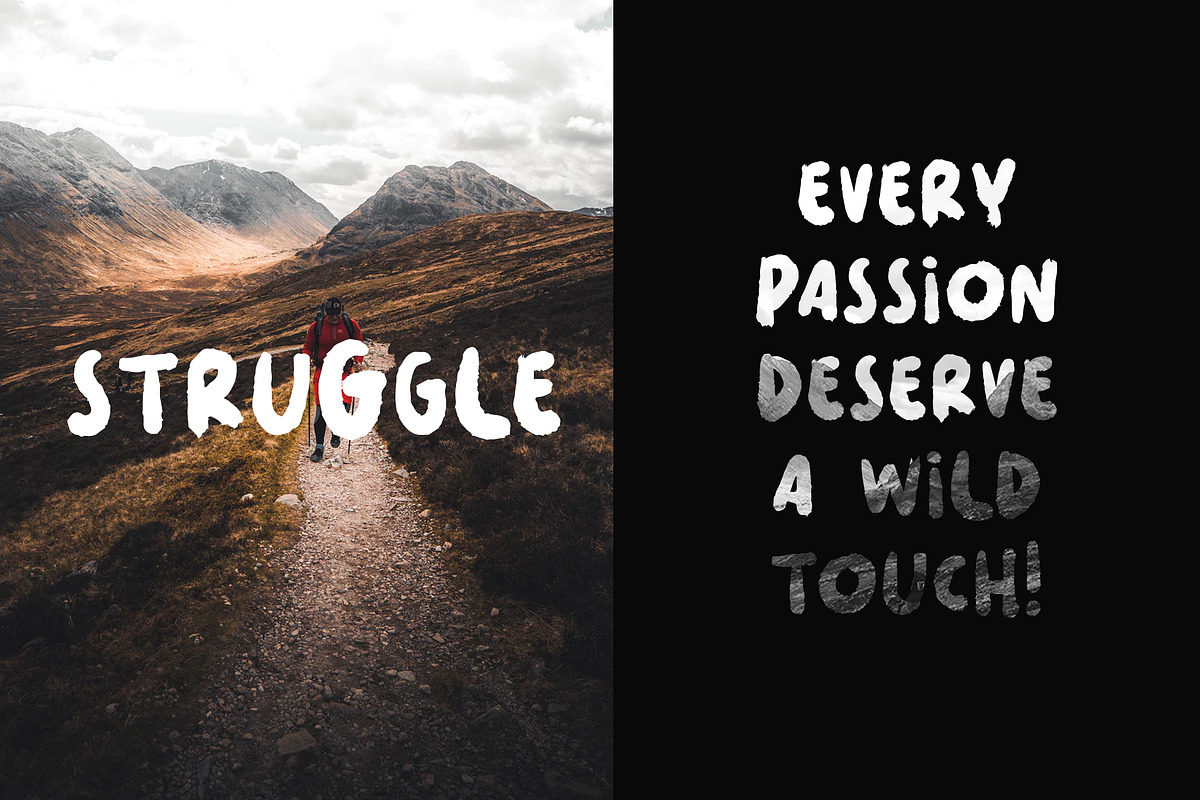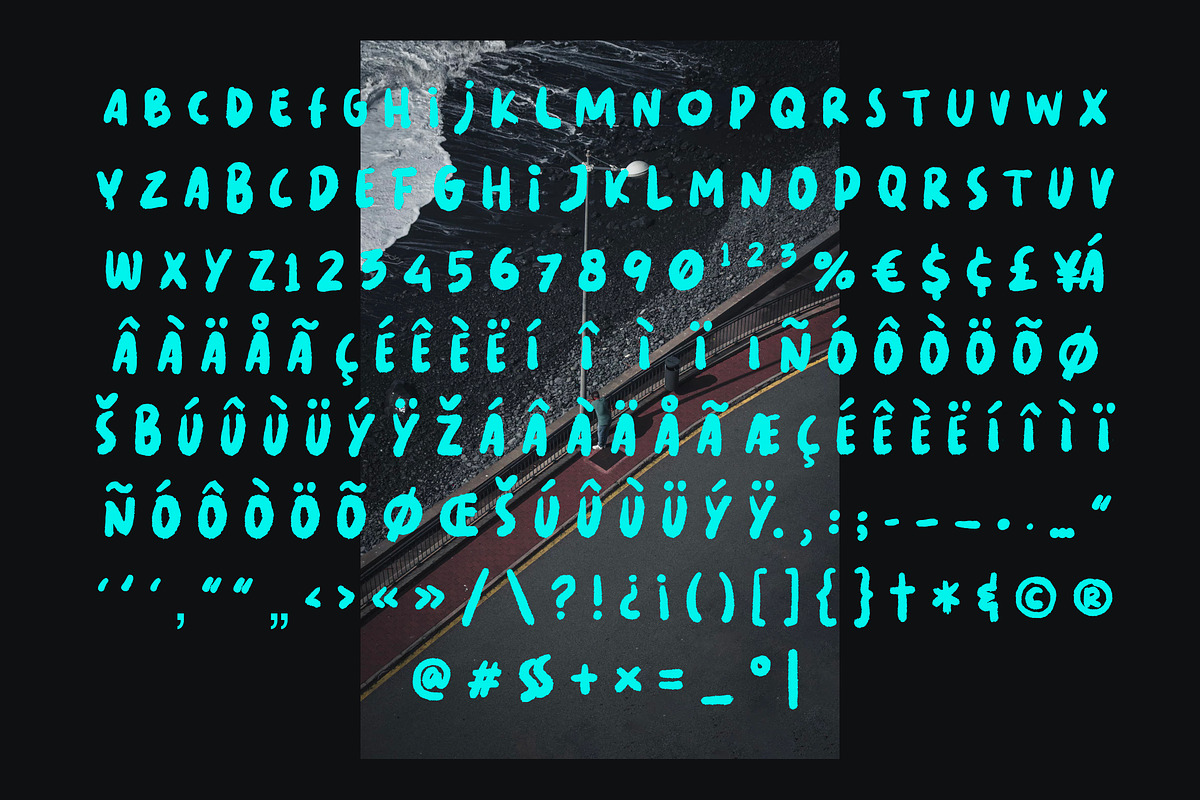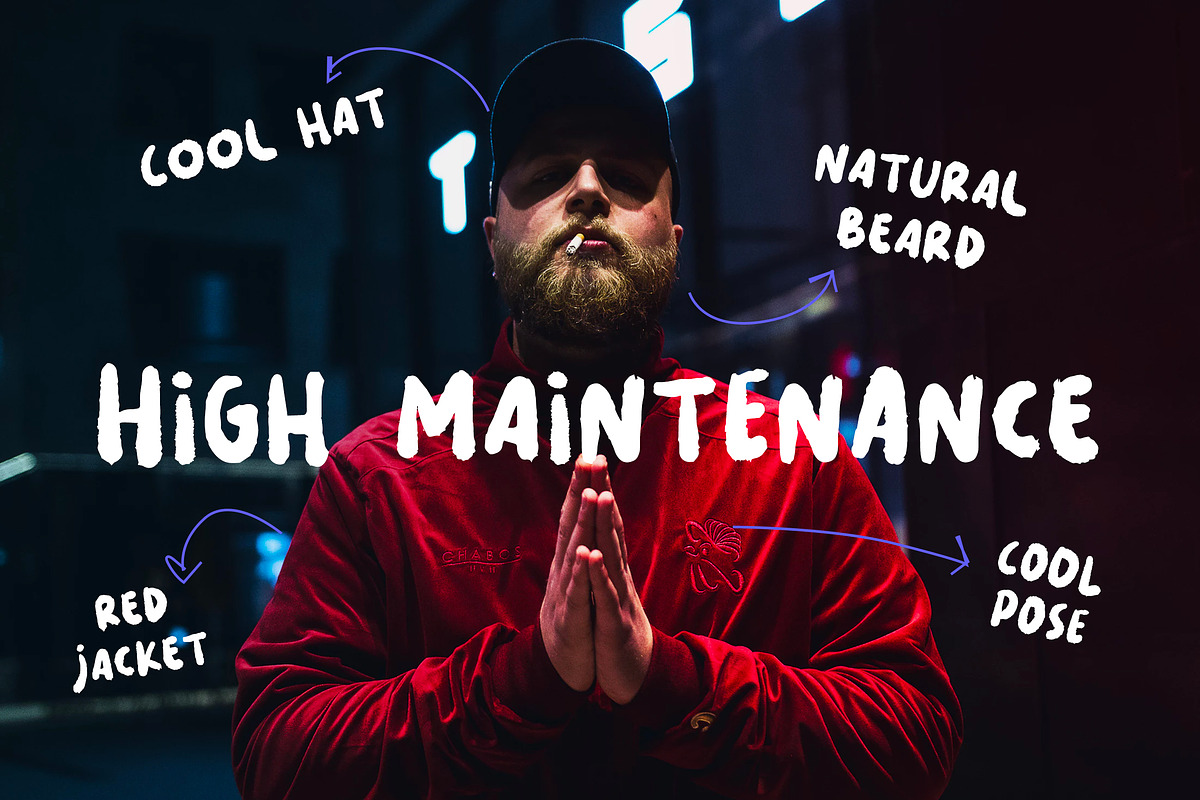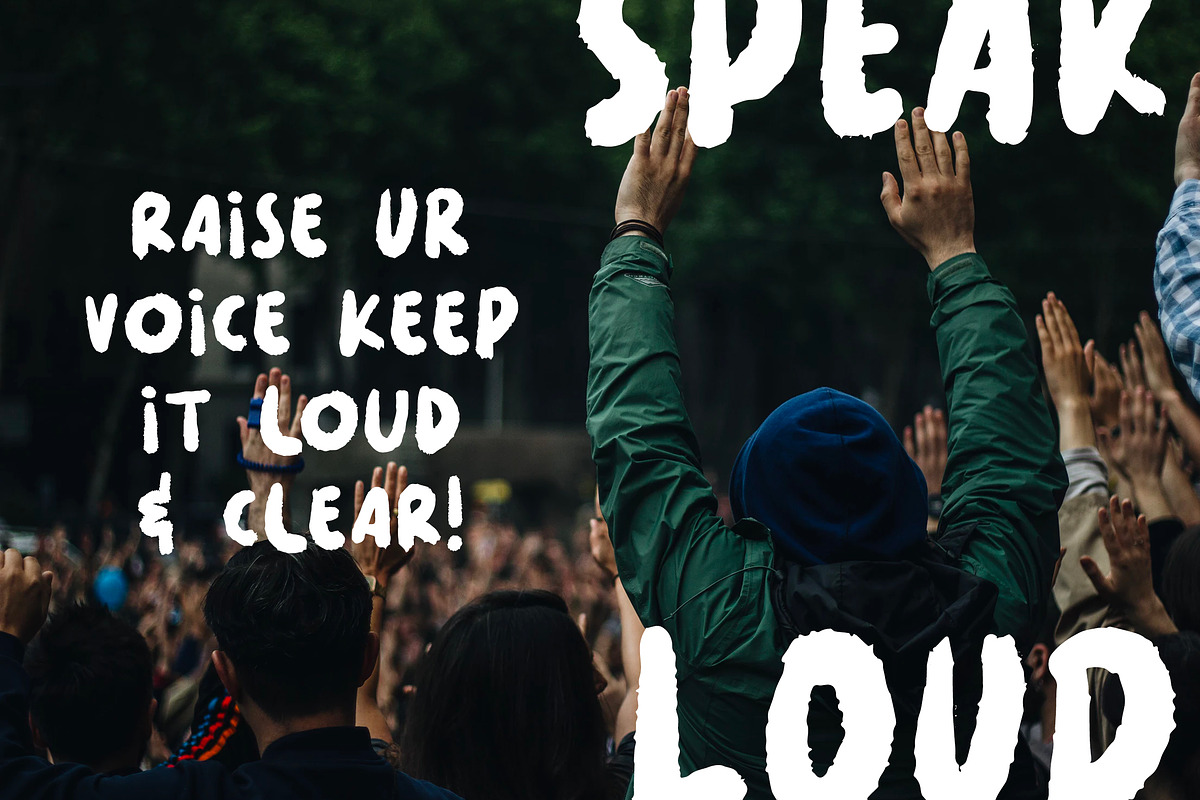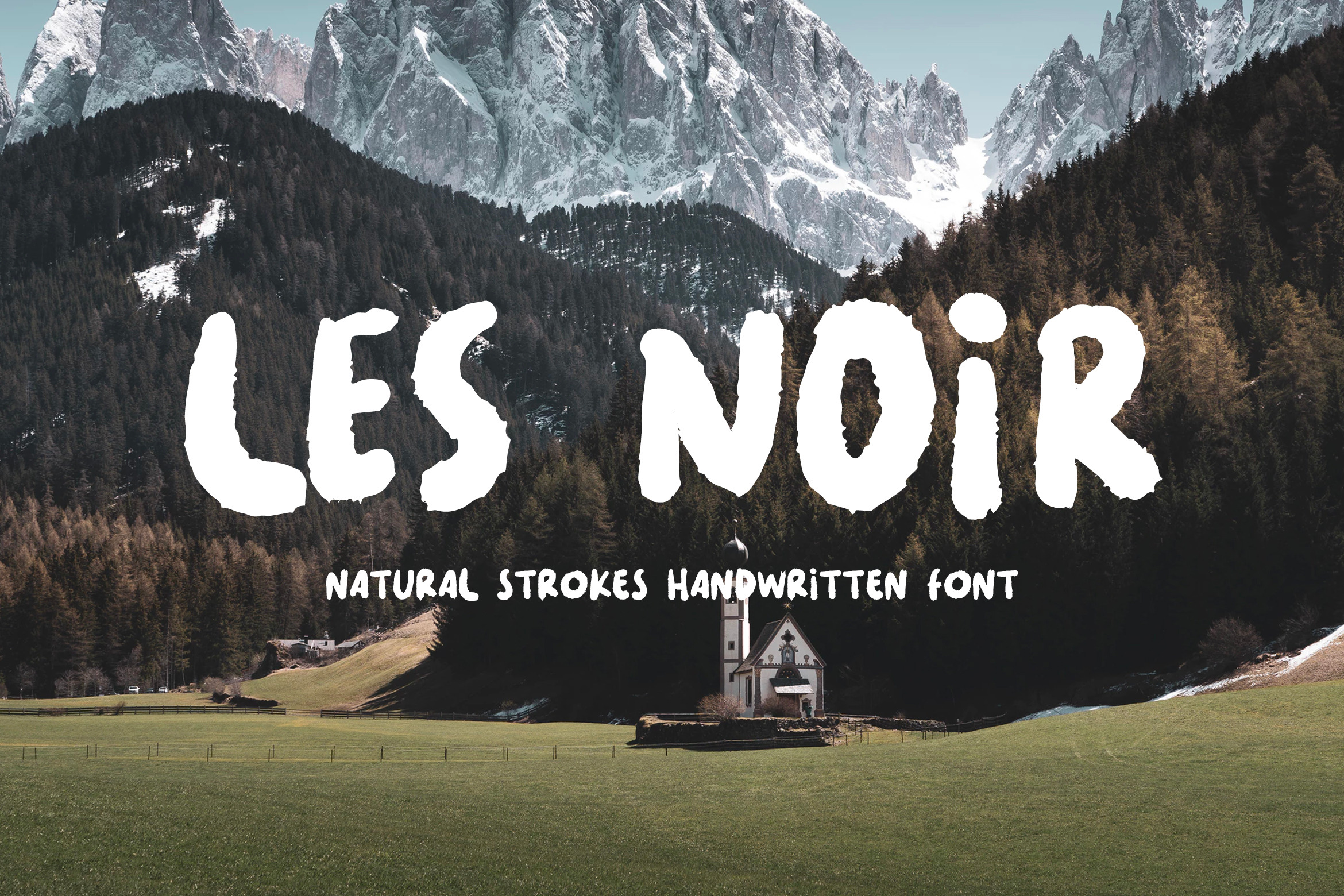
Les Noir - Rough Handwritten Font
Introducing LES NOIR, a unique display font from Mocosans. This handy sans serif includes a full character, numbers, punctuation & also alternate version. Perfect for big displays, titles, posters, marketing & advertising.
- Alternate glyphs for each lowercase letter
- Numbers & All major punctuation included